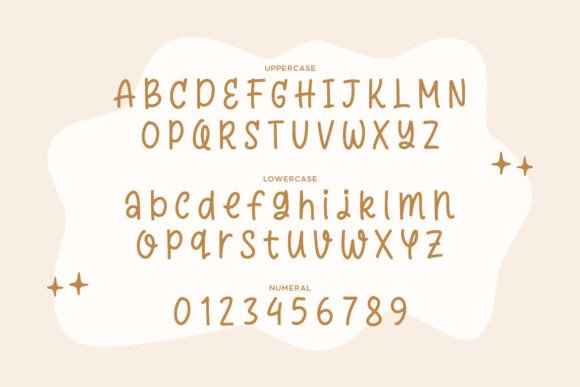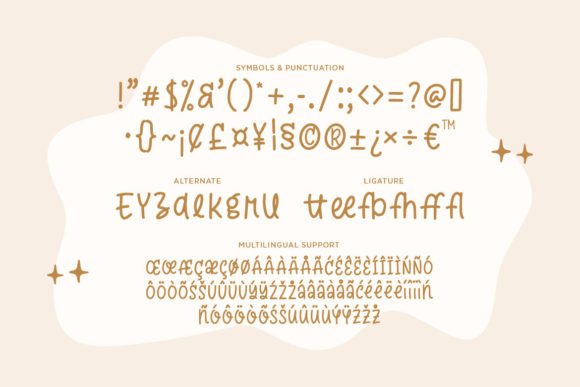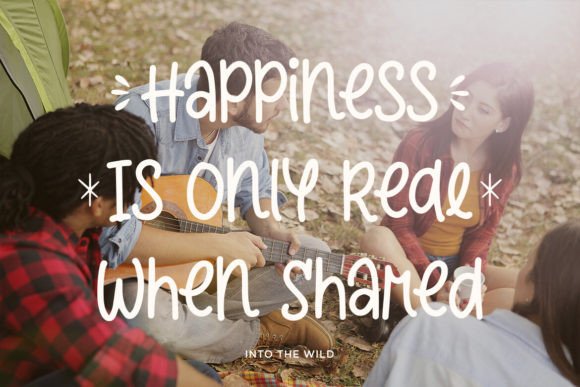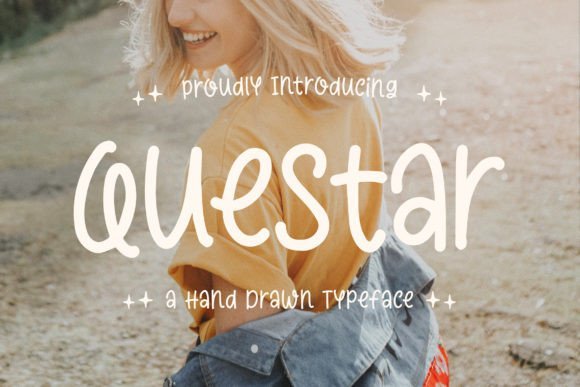
Introduction to Questar Font
Embark on a creative journey with β€œQuestar” – a hand-drawn typeface that adds an artistic touch to your designs.
Embrace the artistic flair of β€œQuestar” as it adds a touch of warmth to your projects Whether you’re creating artistic branding, dreamy illustrations, personalized stationery, or creative social media posts, this typeface will captivate your audience with its handcrafted and expressive style.
Questar Font offers exceptional quality and versatility, making it a valuable addition to your design toolkit. Whether you’re creating for personal projects or commercial use, Questar Font delivers professional results.